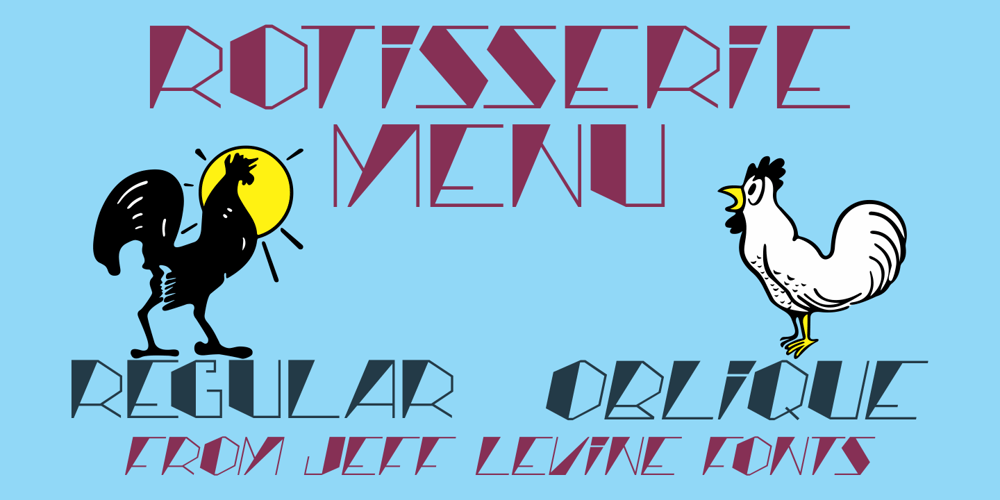
Rotisserie Menu JNL Font Family was designed by Jeff Levine and published by Jeff Levine. Rotisserie Menu JNL contains 2 styles and family package options. A 1928 menu for the restaurant “Rotisserie Du Cardinal” had the word “Cardinal” hand lettered in quite an unusual Art Nouveau type design consisting of thick and thin lines using angles to form the letter shapes. This eccentric (yet charming) style of lettering is now available as Rotisserie Menu JNL in both regular and oblique versions.